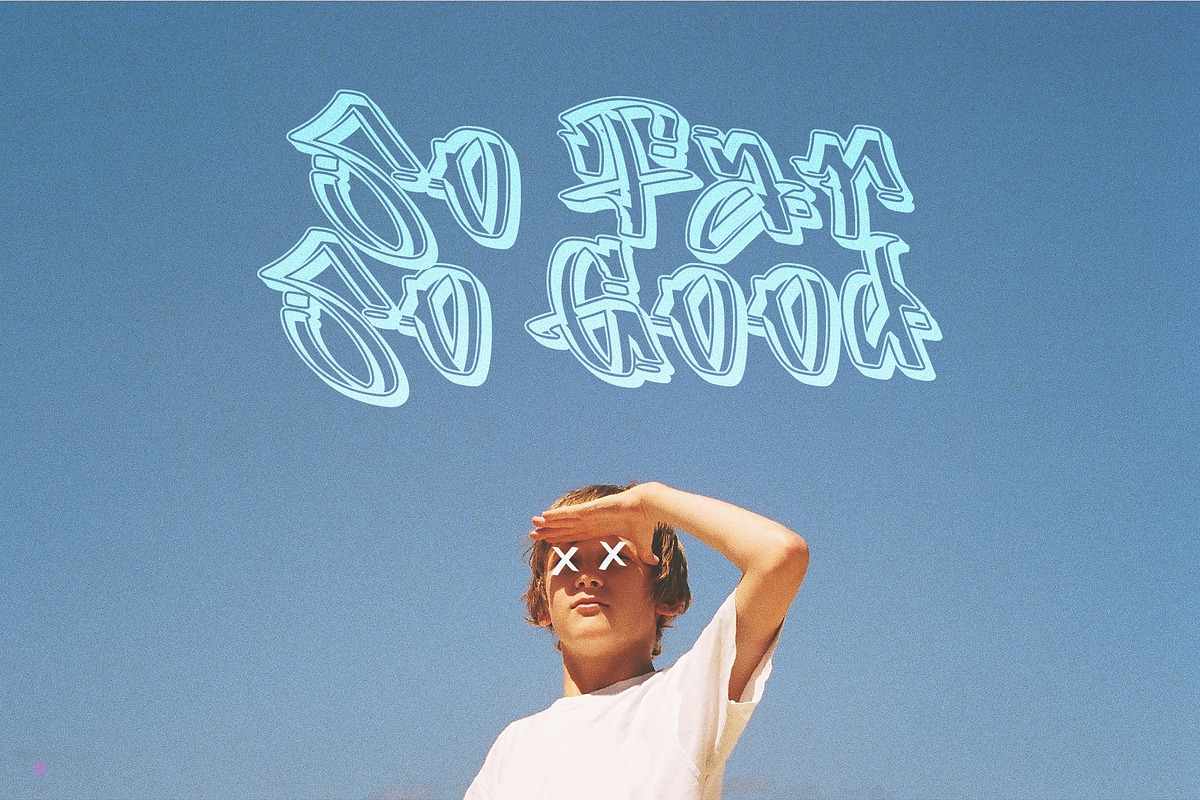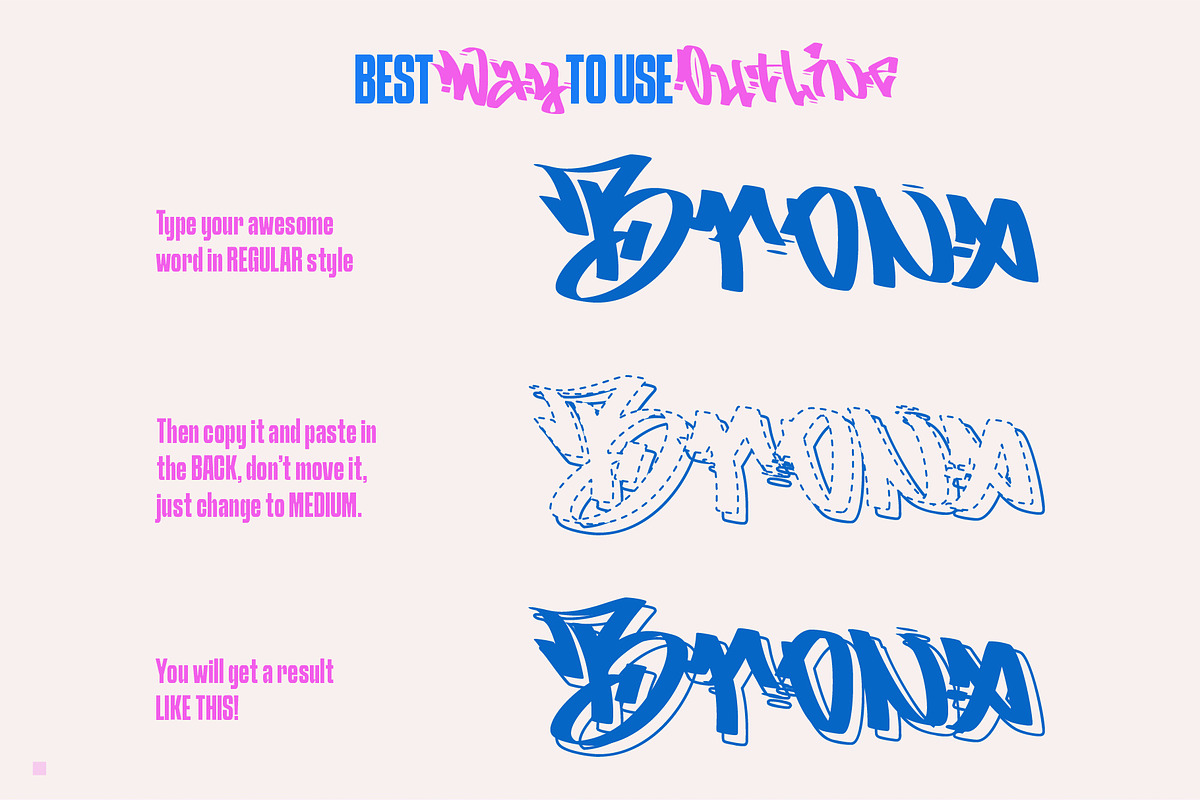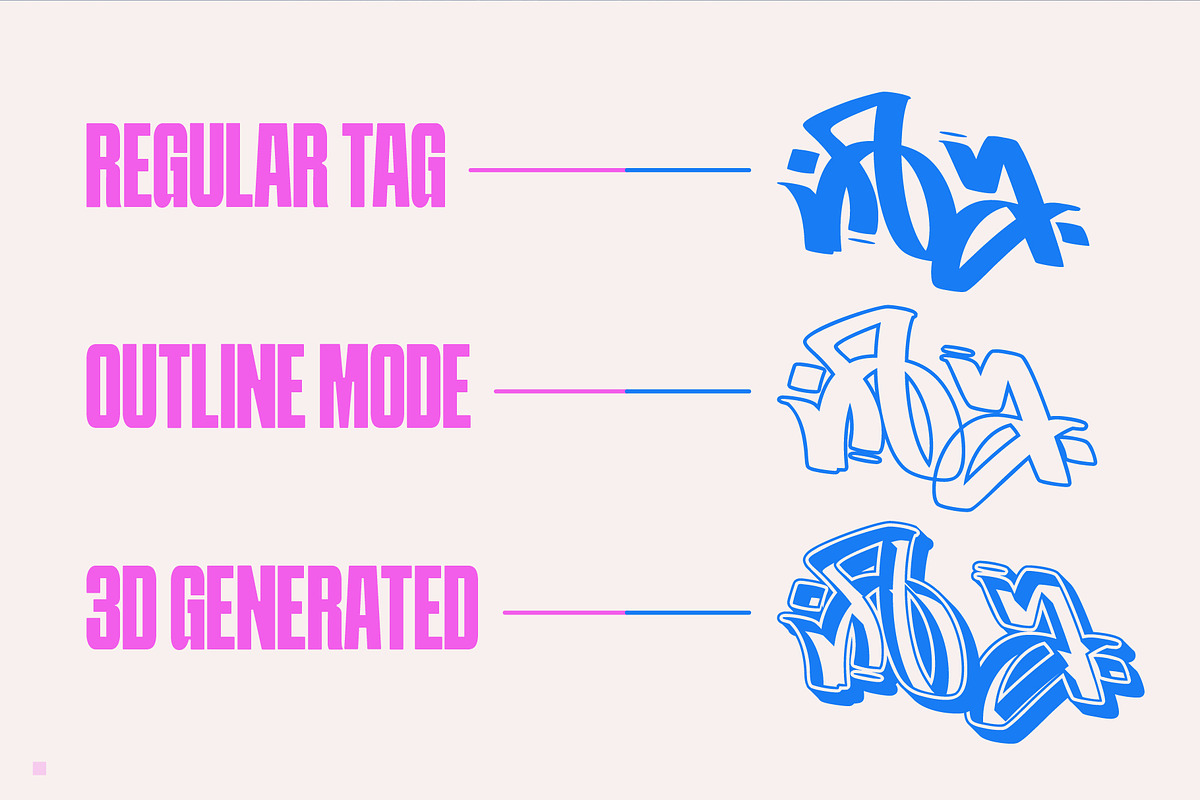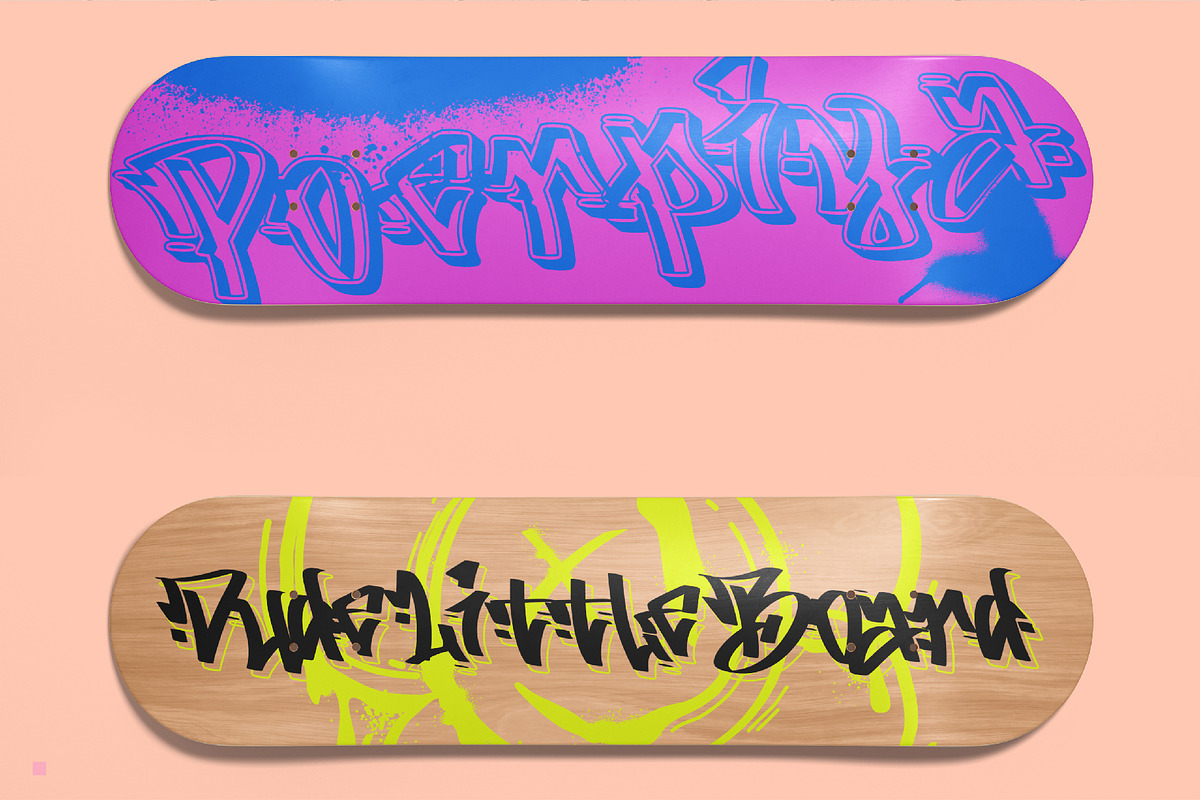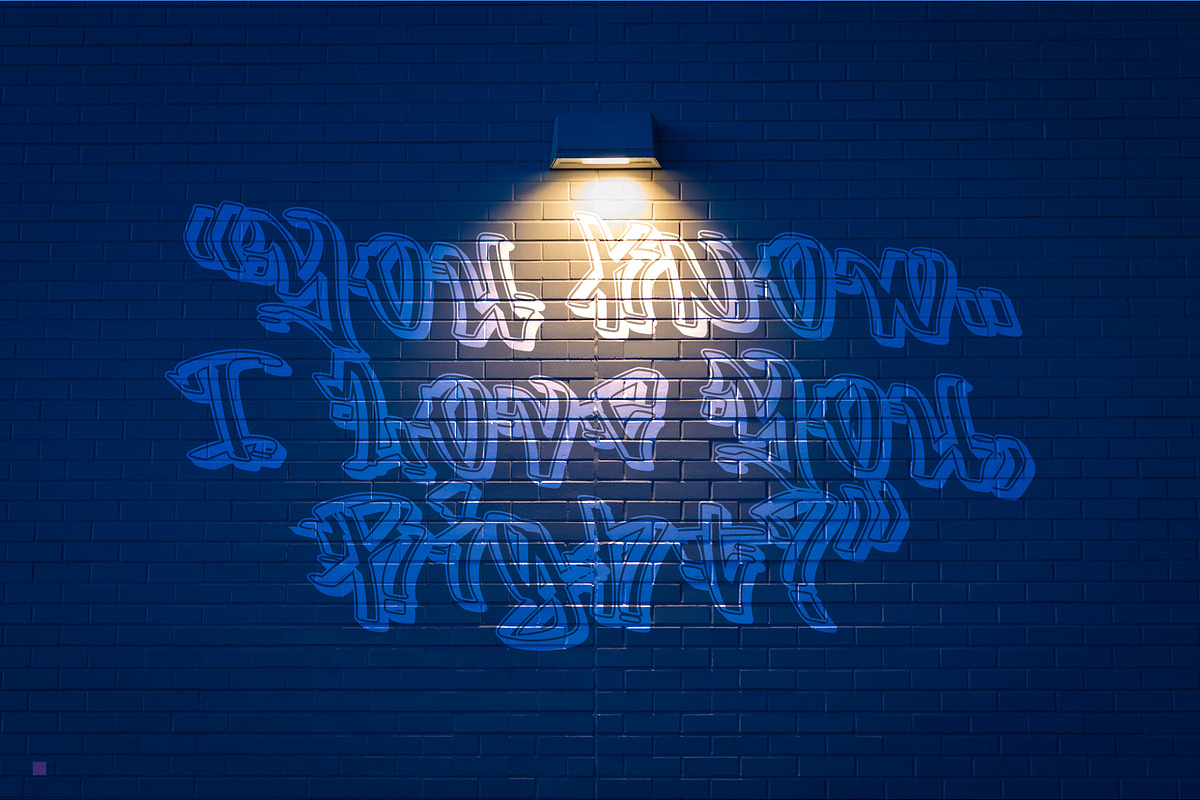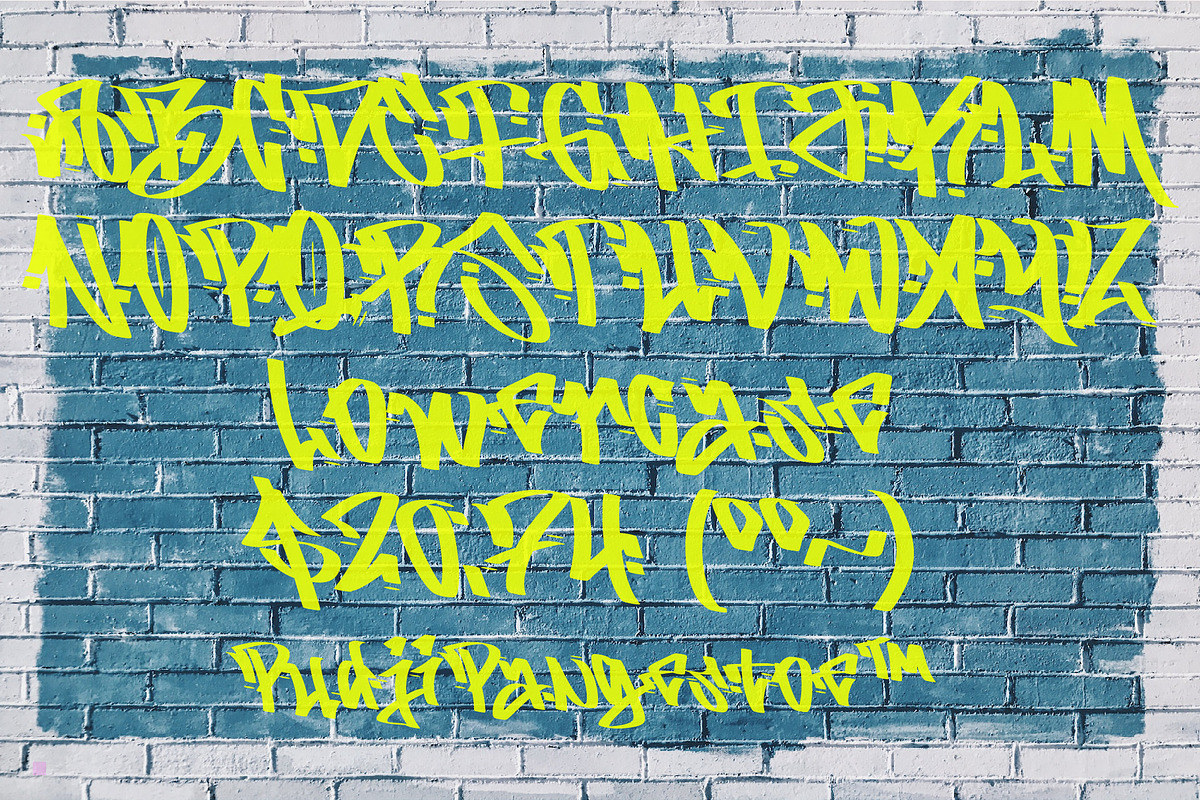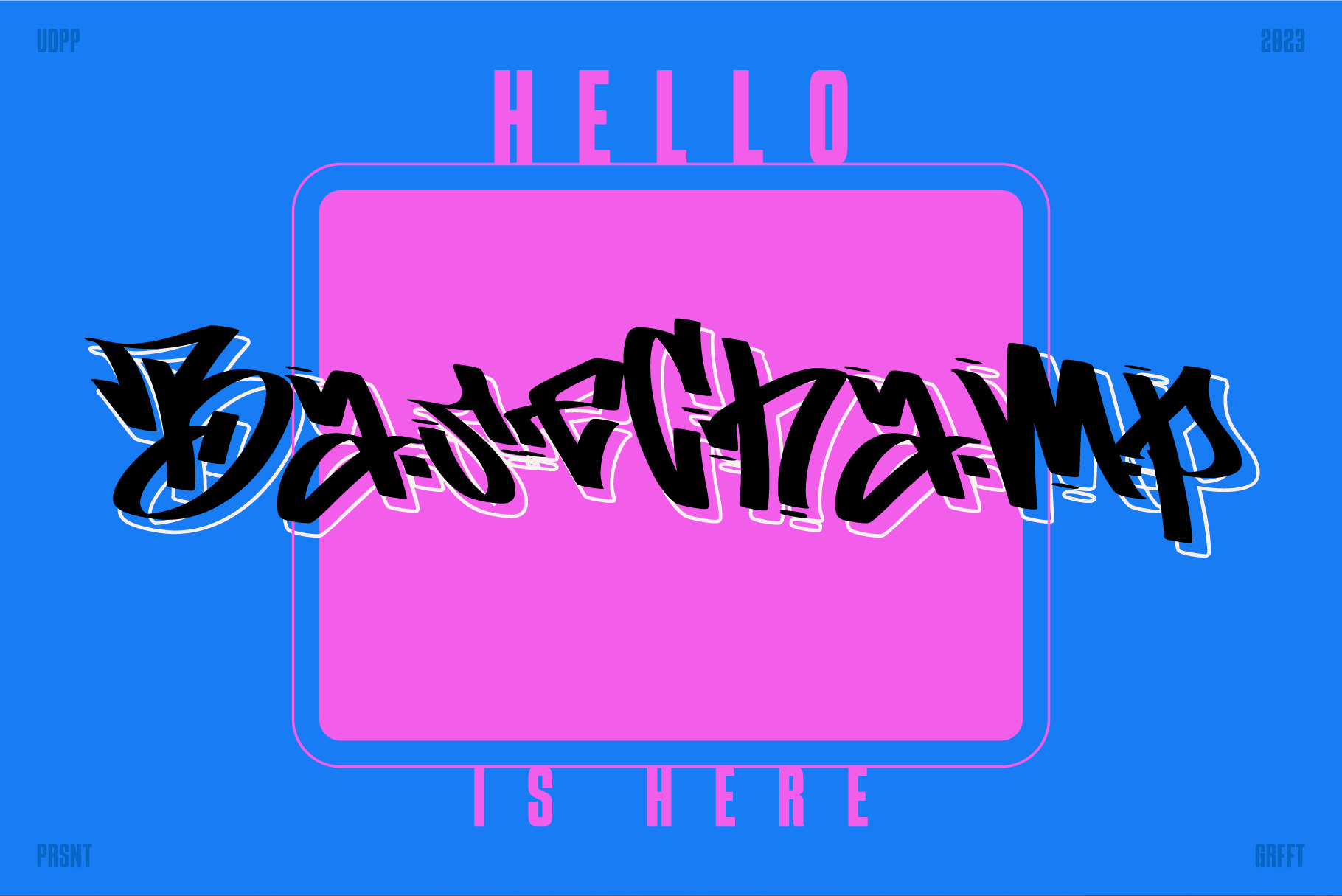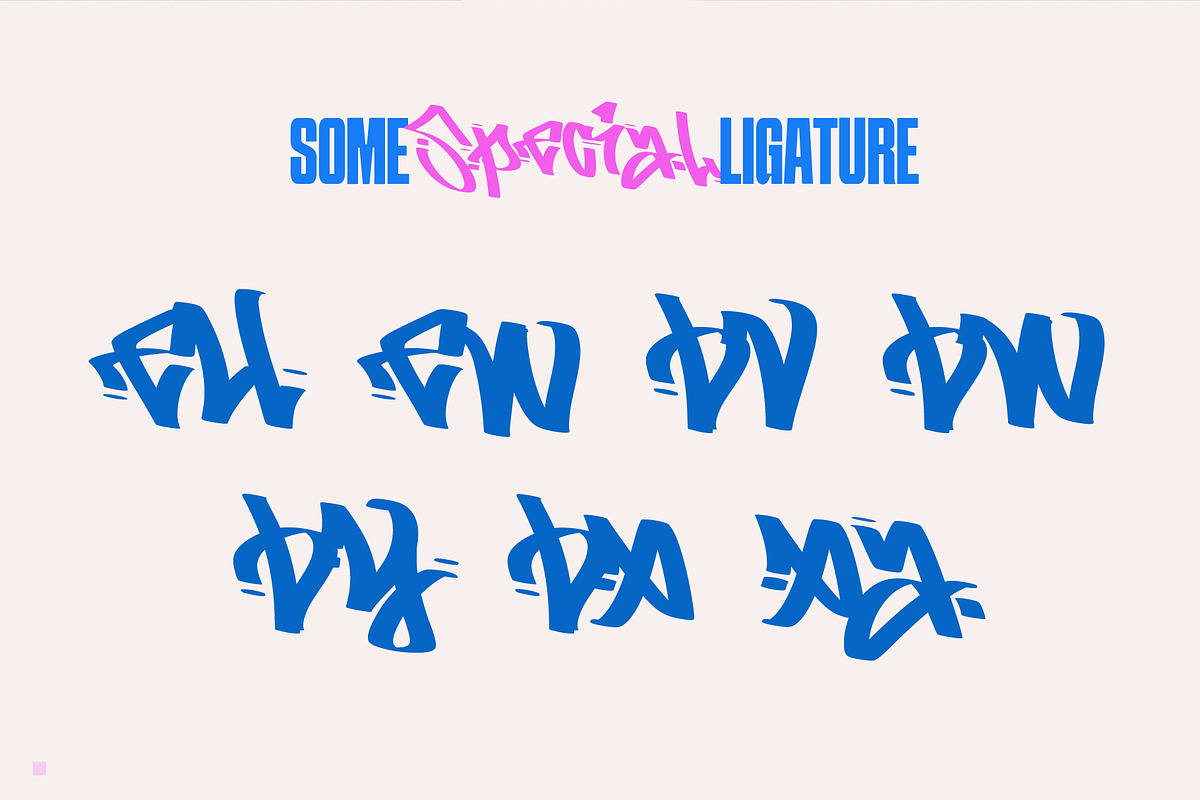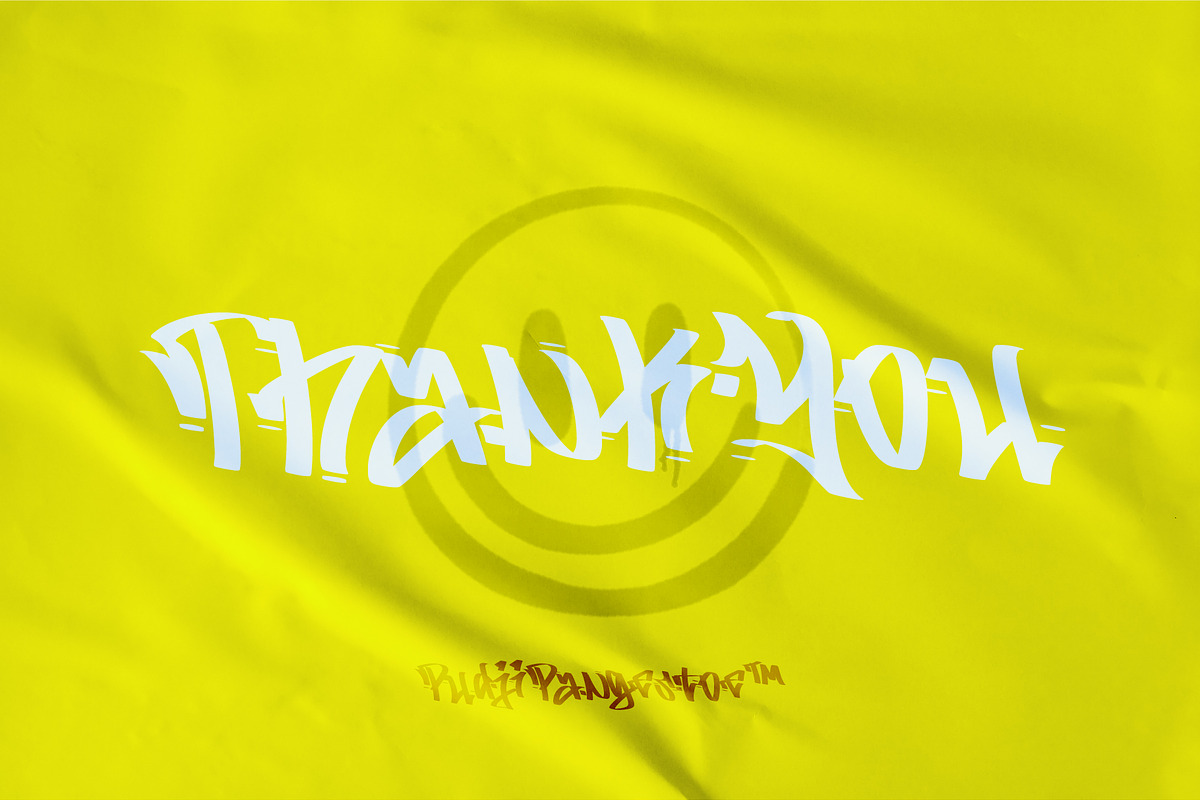
Base Champ Graffiti Font Extras
Base Champ is a typeface basic from Graffiti Tagging, it contains different effects to maximize the user when using it.
- Over 276 glyphs with 7 ligatures in 1 OpenType feature